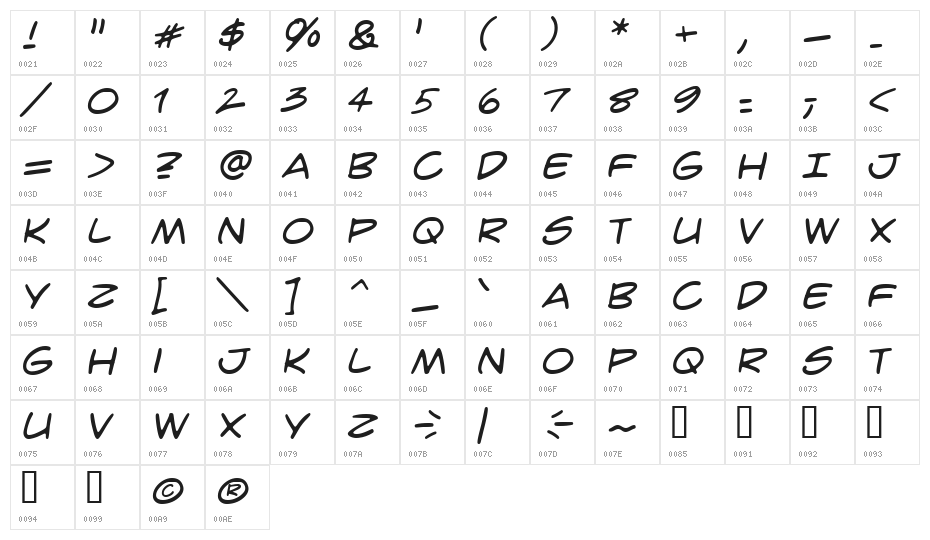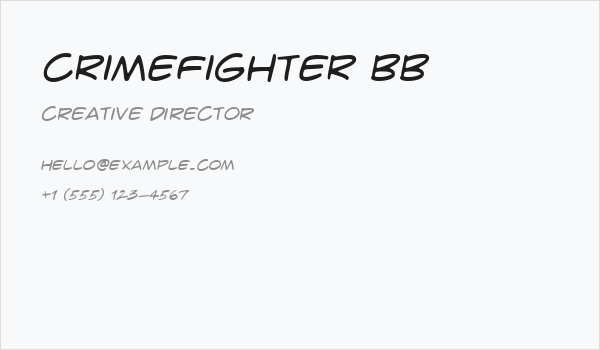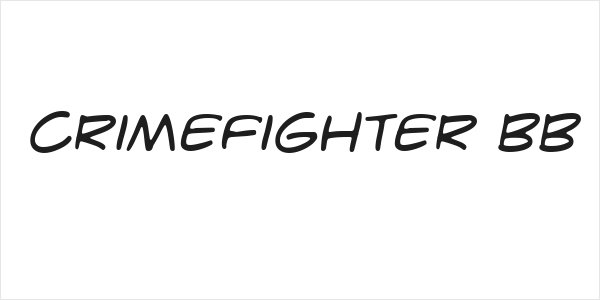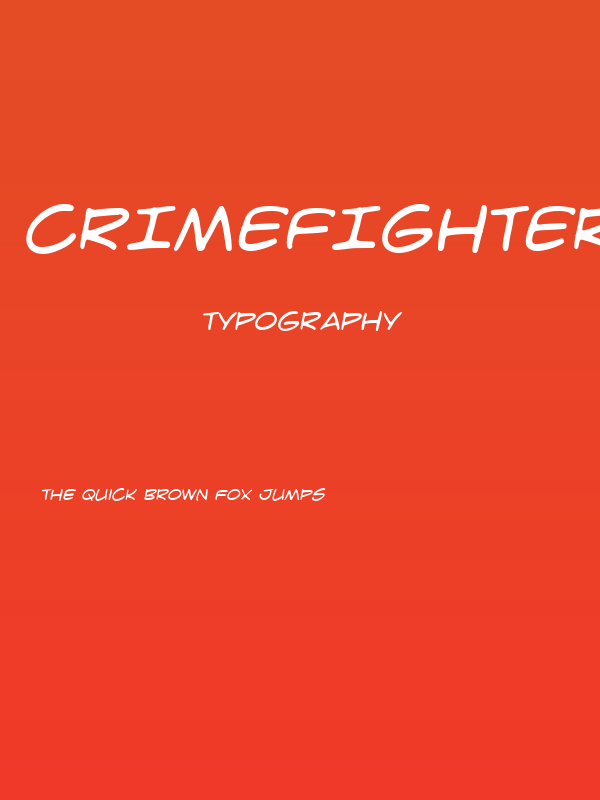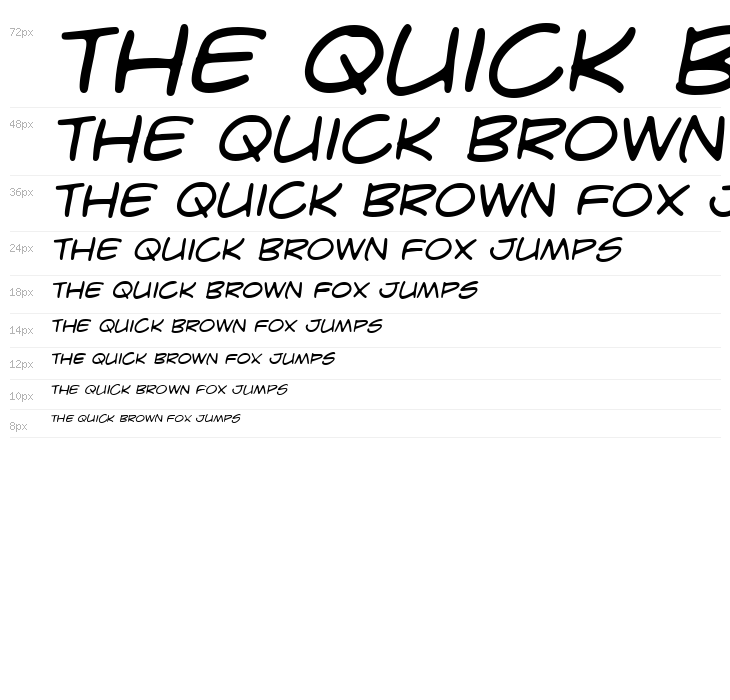
CrimeFighter BB Font
CrimeFighter BB Description
This font exhibits a dynamic and energetic style, characterized by its bold and slightly italicized letterforms. The strokes are smooth and fluid, giving it a handwritten appearance that is both casual and expressive. The uppercase and lowercase letters maintain a consistent flow, while the numerals and special characters integrate seamlessly with the overall design. The font's playful yet assertive nature makes it suitable for projects that require a personal touch or a sense of movement.
| Proposed Projects | Ideal for comic books, children's books, playful branding, and informal invitations. |